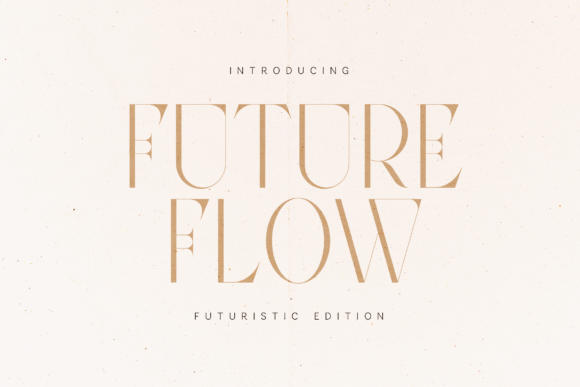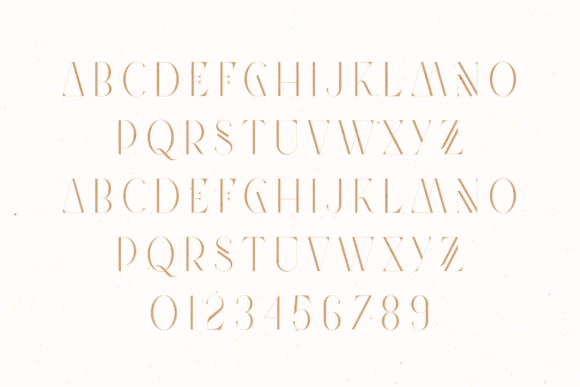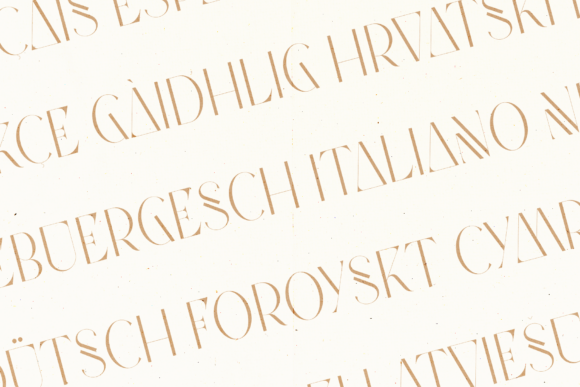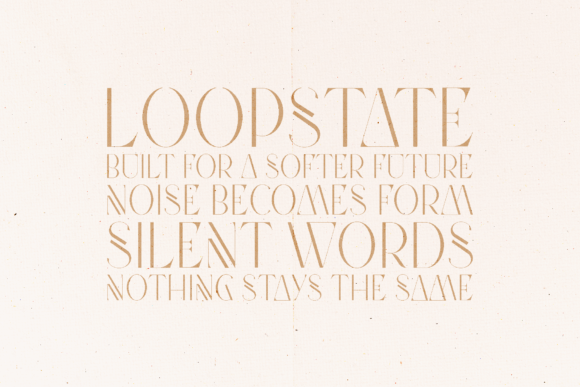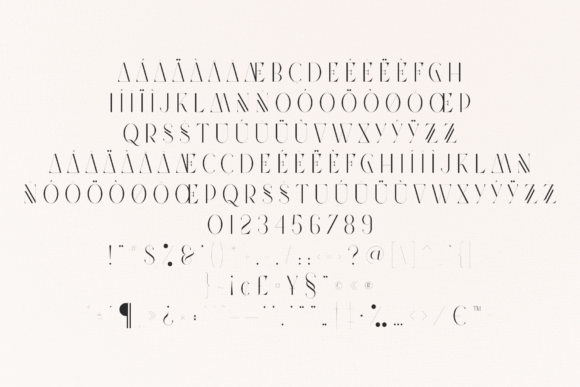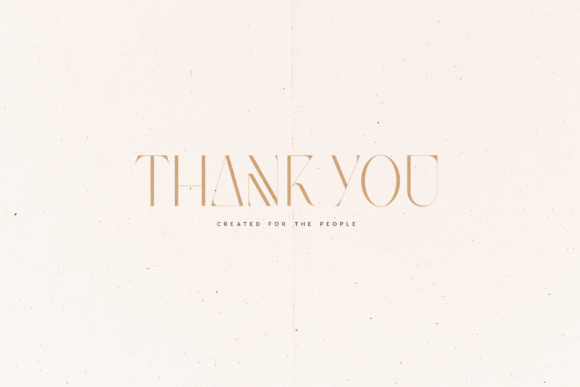
Typographic Innovation for the Brave
Remember that moment when you stumbled upon the perfect font, and your design just came alive? It’s like a spark of creativity that sets your imagination ablaze. For designers seeking to push the boundaries of visual expression, that spark is about to ignite with the Future Flow Font.
This elegant serif font is a masterclass in blending classic letterforms with forward-thinking geometry, resulting in a modern, high-end aesthetic that feels both experimental and timeless. With its sharp precision and refined contrast, the Future Flow Font is the perfect companion for designers who crave to make bold statements and create visionary designs.
By incorporating the Future Flow Font into your design arsenal, you’ll be able to elevate your work to new heights and give your projects a confident, progressive voice. Its balance of elegance and futurism makes it an invaluable asset for luxury brands, creative studios, and modern publishing projects.
Future Flow Font Key Features
- Font Family: Future Flow Font is a modern sans-serif font family with 6 styles (Thin, Light, Regular, Medium, Bold, Black) designed for various digital applications.
- Character Set: The font includes a comprehensive character set covering Latin, Cyrillic, Greek, and other languages, making it suitable for global projects.
- Unique Characteristics: The font features a distinctive, futuristic design with a focus on legibility, making it ideal for use in digital interfaces, user interfaces, and futuristic branding.
Designer Review: Future Flow Font
Overall, I think Future Flow Font has some great qualities that make it suitable for modern designs, but it also has some limitations that might make it less ideal for certain projects. ✨
- ✨ The font’s futuristic vibe is on point. It’s perfect for sci-fi themed projects or anything that needs a cutting-edge feel.
- ✨ The font’s clean lines and simple shapes make it easy to read, even at small font sizes.
- ✨ The font supports a wide range of languages, making it a great option for international projects.
- ⚠️ The font’s limited expressiveness can make it feel a bit flat and uninteresting for certain projects. It’s not ideal for designs that need a lot of personality.
- ⚠️ The font’s futuristic feel can also make it feel dated if used in projects that don’t have a clear sci-fi or futuristic theme.
Overall, I think Future Flow Font is a solid choice for modern designs that need a clean and futuristic feel. However, it’s not the best option for projects that require a lot of personality or expressiveness. With some careful consideration of its limitations, Future Flow Font can be a great addition to any designer’s toolkit.
Tips for Getting the Most Out of Future Flow Font
Use Future Flow Font to create futuristic and modern designs that grab attention.
Pair it with bold and bright colors to create a striking visual effect.
Use it for headings and titles to add a touch of futurism to your designs.
Future Flow Font is ideal for:
Technology and gadget websites
Future-themed presentations and slides
Modern and futuristic branding materials
Alternatives to Future Flow Font
Future Flow Font is a modern sans-serif font known for its clean lines and futuristic feel. If you’re looking for alternative fonts that offer similar characteristics, here are a few options: